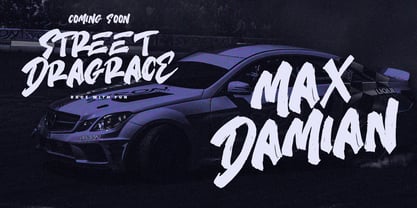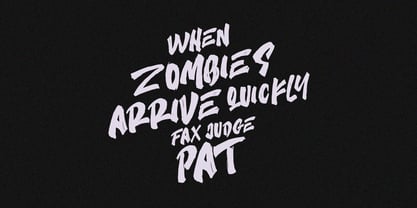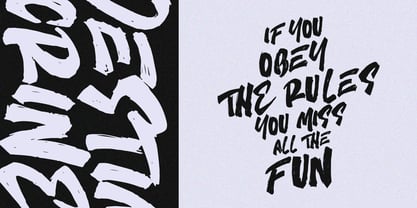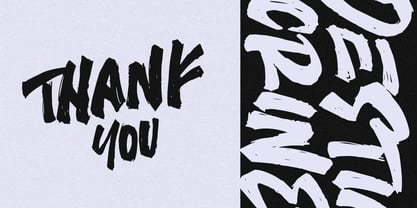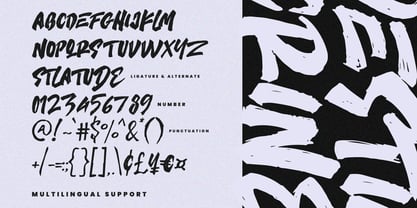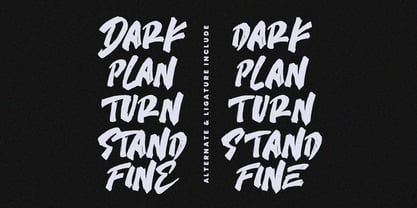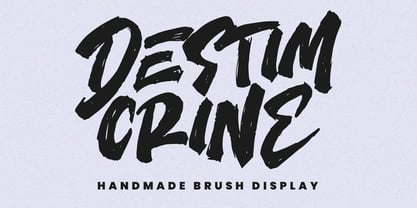
MC Destim Crine
by Maulana Creative
The MC Destim Crine Font Family was designed by Gilang Maulana and published by Maulana Creative. MC Destim Crine contains 1 styles. More about this family
Give your designs an authentic brush handcrafted feel. "Destim Crine Handmade Brush Font" is perfectly suited to signature, stationery, logo, typography quotes, magazine or book cover, website header, flyer, clothing, branding, packaging design and more.
Designers: Gilang Maulana
Foundry: Maulana Creative